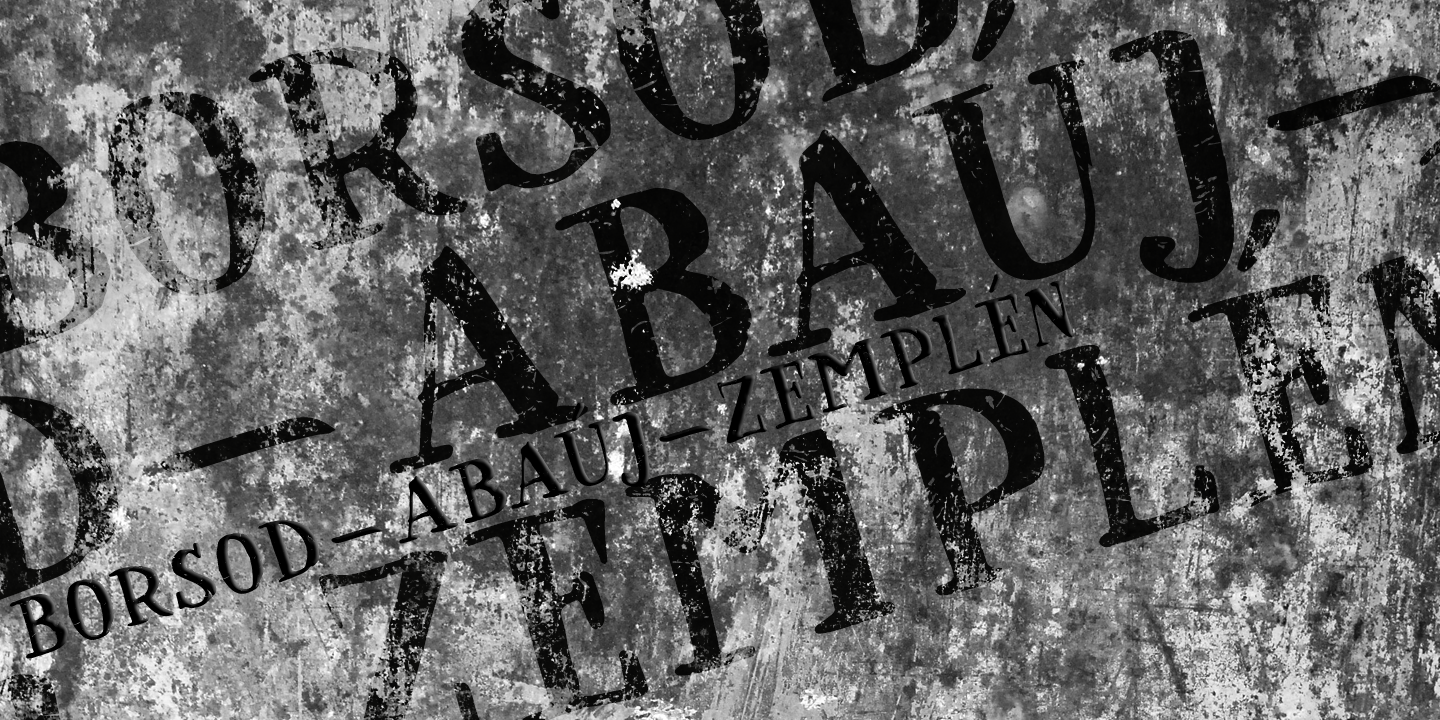
This distinctive typeface is perfect for Eastern European cultural centers, Hungarian heritage organizations, folk art exhibitions, traditional craft branding, regional tourism promotions, cultural festival communications, heritage museum displays, and Central European marketing that requires authentic cultural representation and regional sophistication with Hungarian elegance and traditional authenticity.
Sorsod Borsod Font is exciting because it beautifully captures the rich cultural heritage and artistic traditions of Hungarian regions through its distinctively crafted letterforms that honor centuries of Central European cultural expression and folk artistry. The font's unique character design and regional aesthetic reflect the world of Hungarian folklore and traditional craftsmanship, making it perfect for cultural organizations that want to convey authentic heritage, regional pride, and the kind of traditional sophistication that celebrates Hungarian cultural identity and Central European artistic traditions with respectful authenticity.
The Sorsod Borsod Font family includes culturally-inspired variations and Hungarian styling options, featuring regular, bold, ornamental, and folk versions, along with traditional design elements and regional alternates that provide cultural organizations and designers with comprehensive typographic tools for creating authentic Hungarian branding and respectful cultural communications.
Celebrate Hungarian heritage with Sorsod Borsod Font Free Download, a typeface that brings Central European cultural sophistication to contemporary heritage and regional branding projects. This exceptional font combines traditional artistry with modern functionality, making it an essential resource for Hungarian cultural centers, heritage organizations, and designers working on Eastern European cultural or traditional craft marketing campaigns. The culturally crafted letterforms ensure excellent readability while conveying the regional sophistication and Hungarian authenticity that defines this distinctly Central European and authentically heritage-inspired typeface.